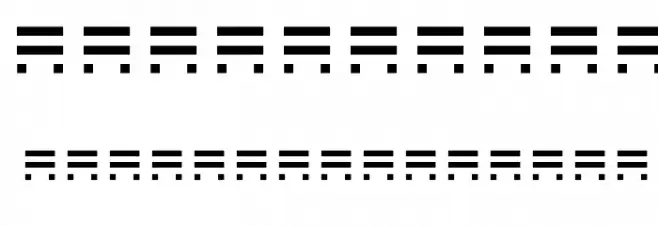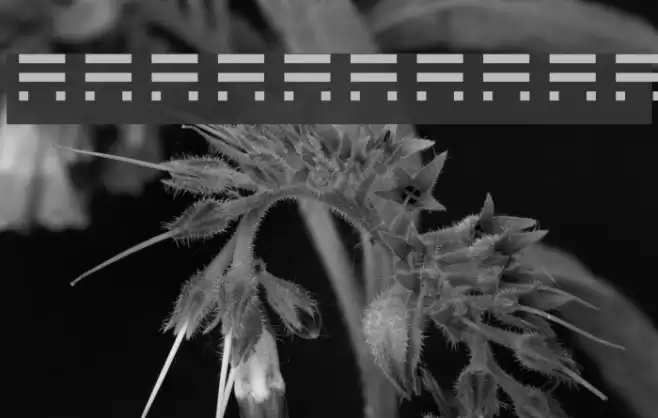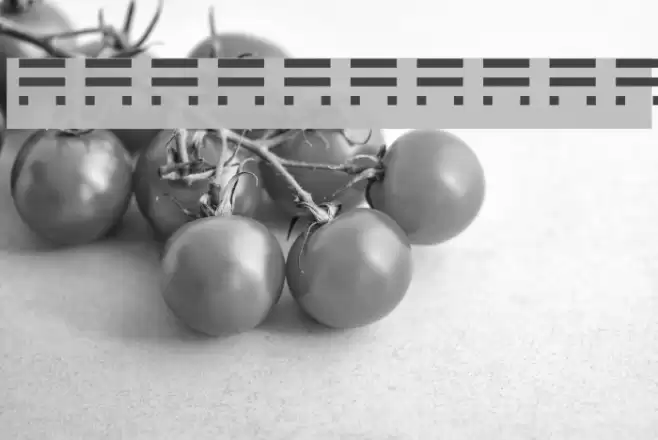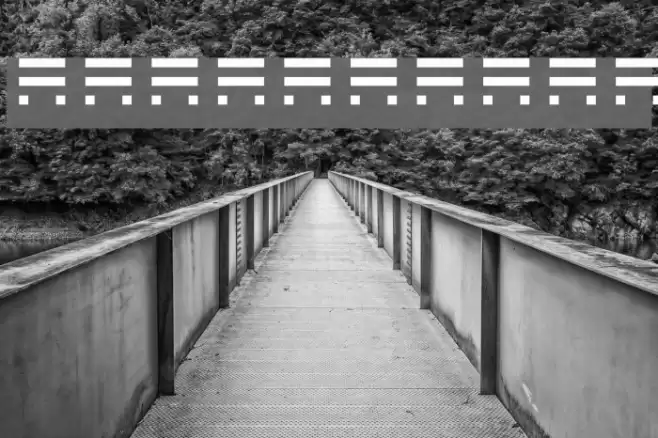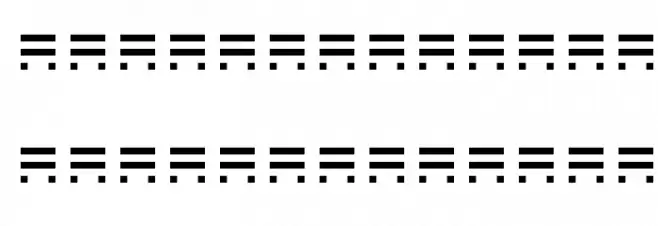
Assys Font
Assys Description
This image consists of repeated geometric patterns made up of horizontal and dotted lines, arranged in rows. There are no recognizable alphabetic, numeric, or symbolic characters present.